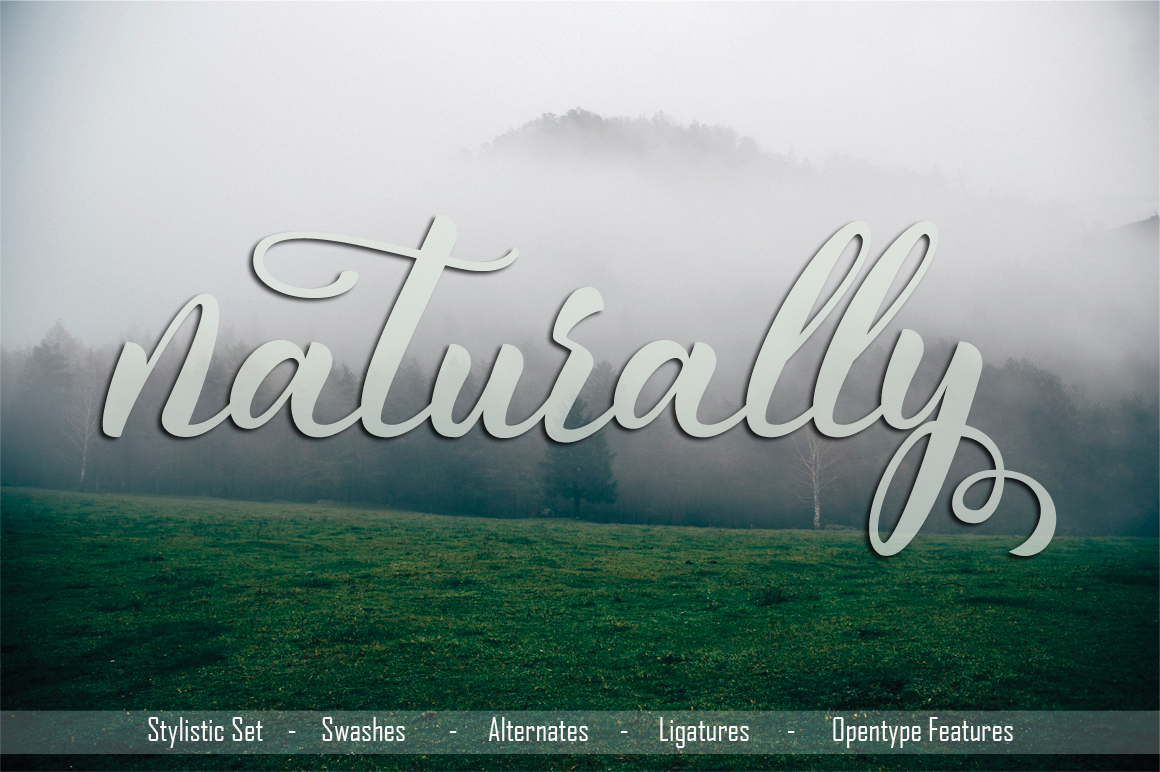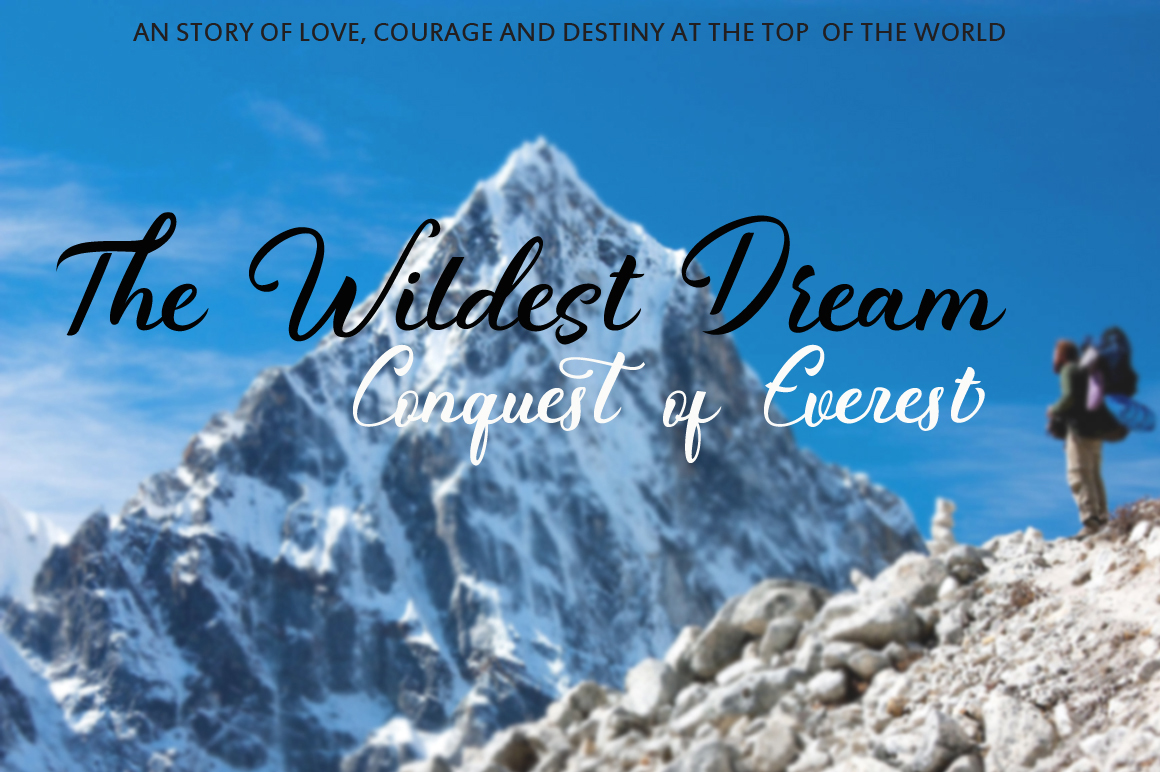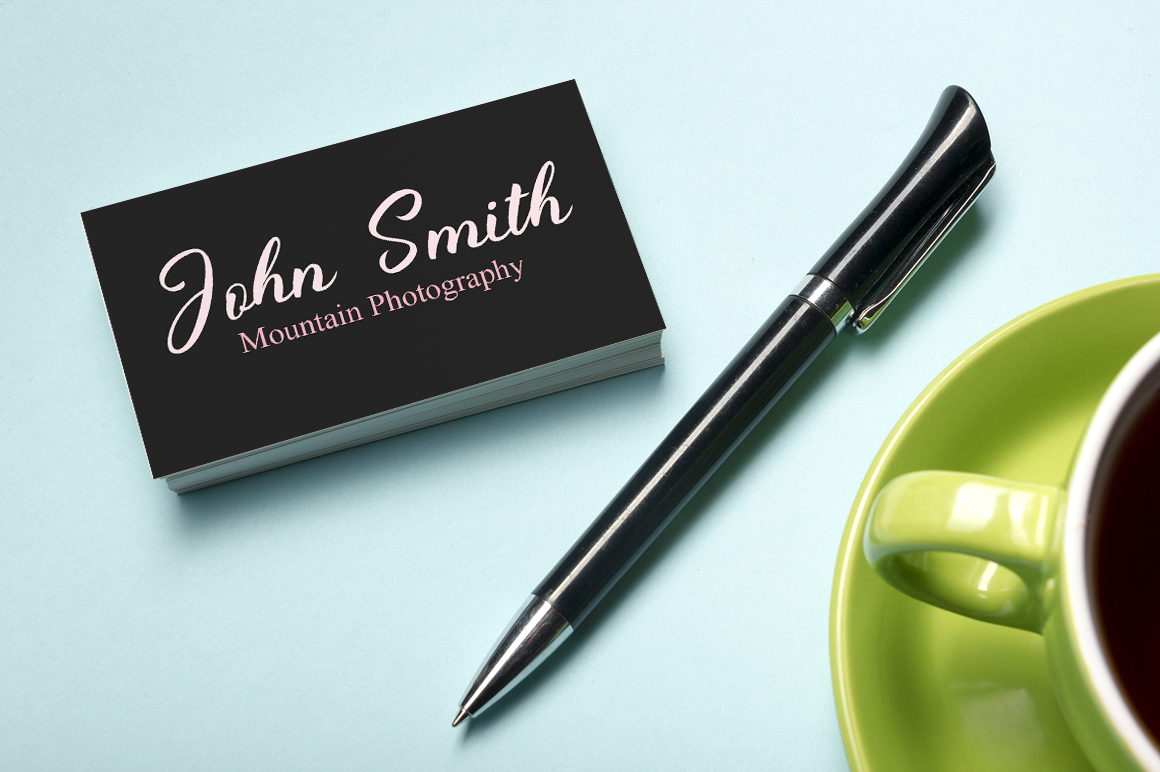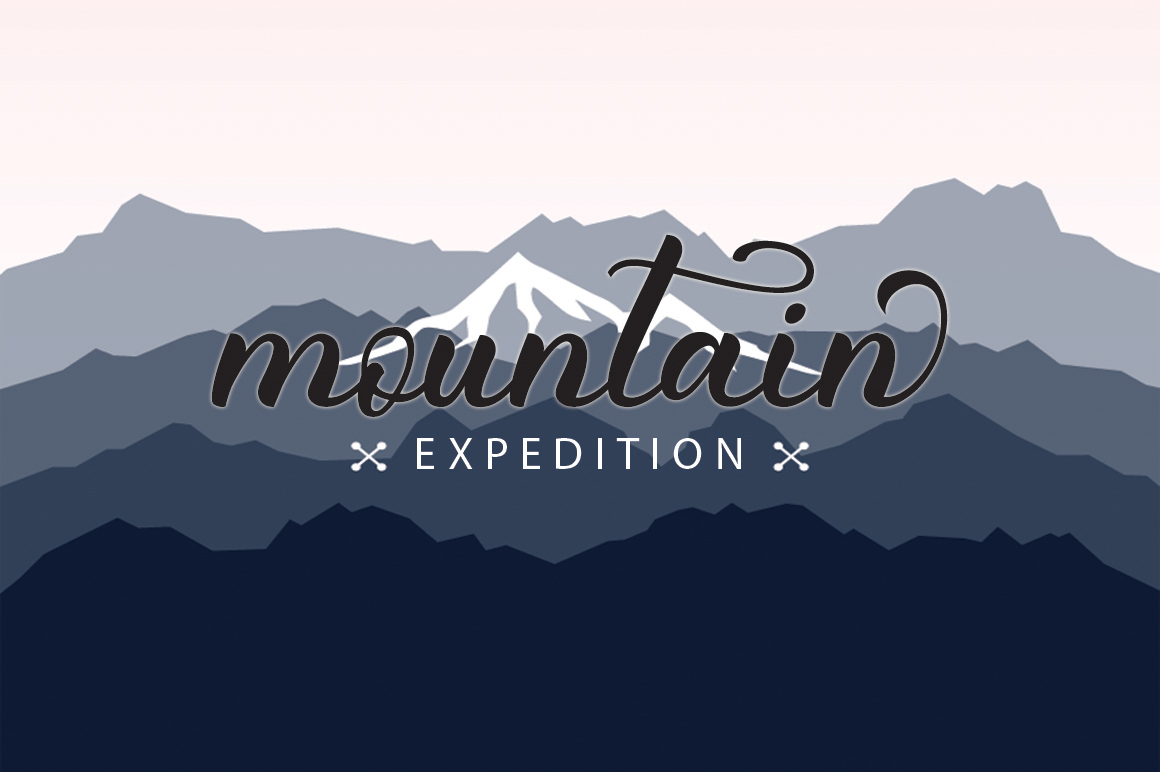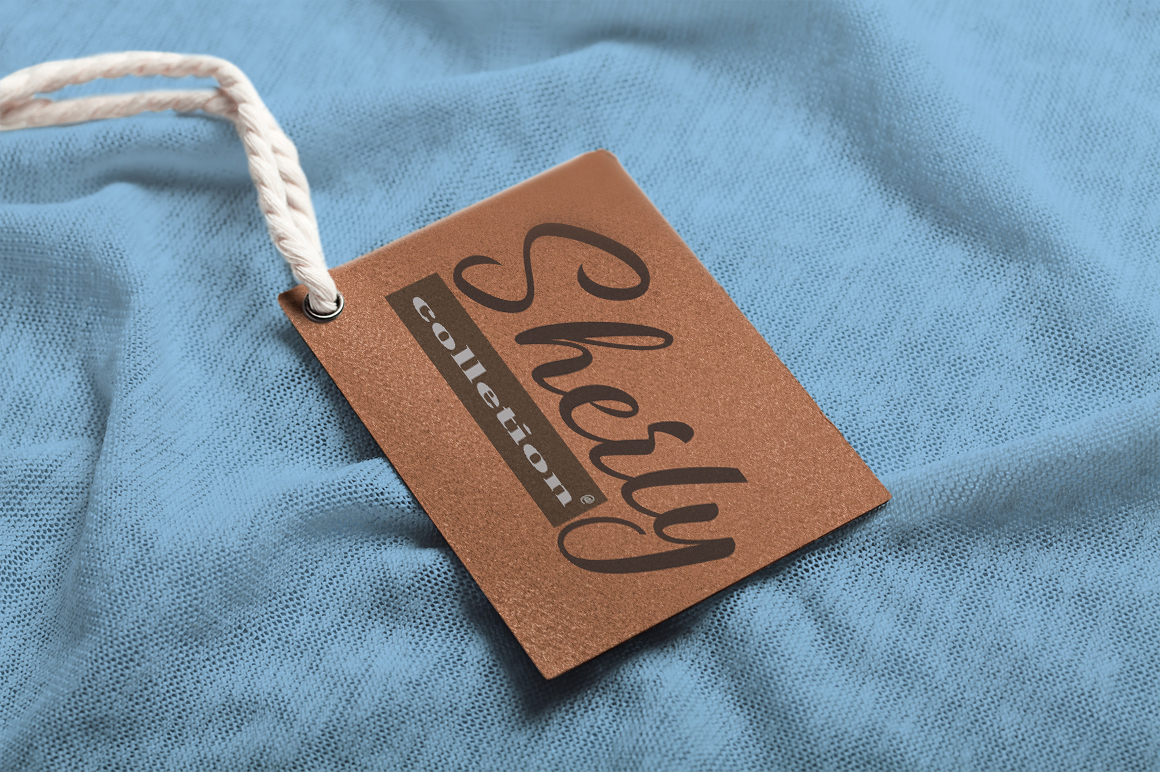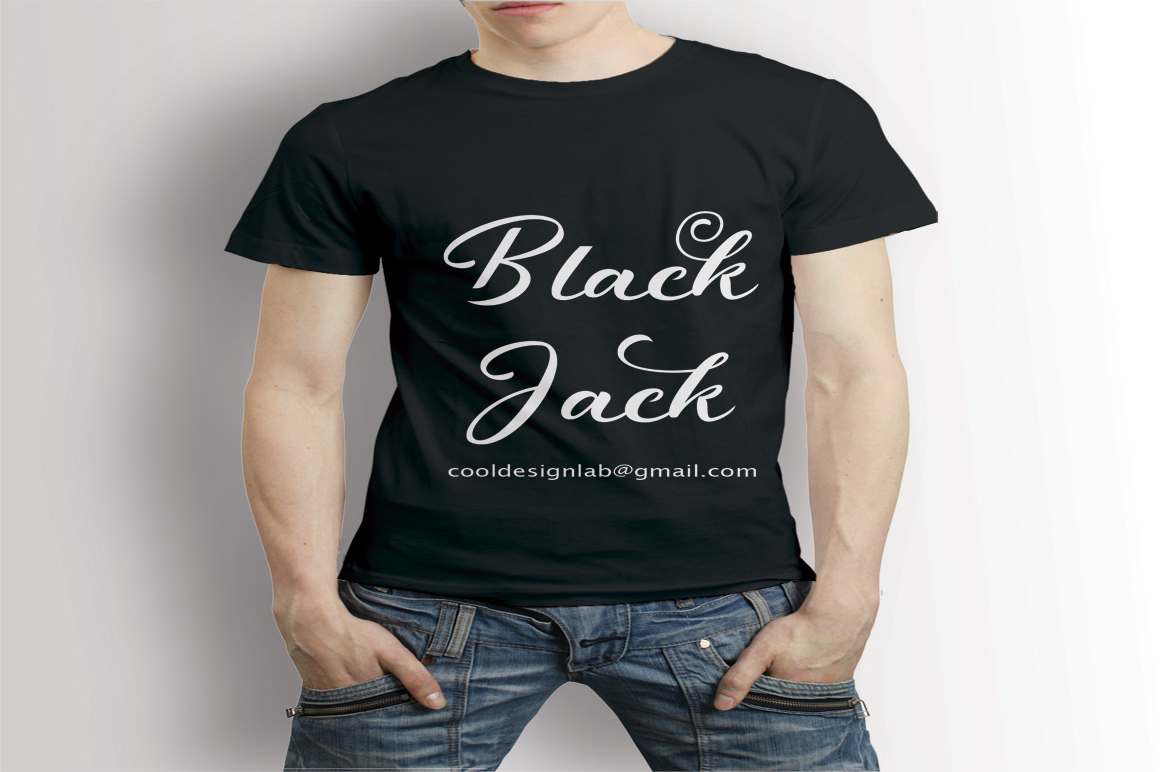
The Art of Elegant Typography: Unveiling the Fanesia Font
As a designer, there’s nothing quite like the thrill of discovering a new font that perfectly captures the essence of your creative vision. For me, that moment came when I stumbled upon the Fanesia Font, a stunning handwritten script with classical roots that immediately stole my heart.
The Fanesia Font is a beautiful formal script designed to evoke a sense of sophistication and elegance, making it a versatile choice for a wide range of design projects, from wedding invitations to luxury branding. With over 400 handmade glyphs and 237 alternate characters, this font is a true masterpiece of typographic craftsmanship.
For designers, the Fanesia Font is a valuable asset, offering a unique combination of classic charm and modern flair that can elevate any design to new heights. Whether you’re looking to create a timeless and sophisticated look or something more playful and whimsical, the Fanesia Font is sure to inspire your creativity and help you achieve your design goals.
Fanesia Font Key Features
- Font Family: Fanesia Font comes in 6 font families (Regular, Italic, Bold, Bold Italic, Light, Light Italic) to cater to various design requirements.
- Character Set: Fanesia Font supports a wide range of characters, including Latin, Cyrillic, and Greek alphabets, making it suitable for multilingual designs.
- Unique Characteristics: The font features a unique, hand-drawn style with subtle flair and elegance, making it ideal for creative and artistic designs.
Fanesia Font Review
I recently had the chance to work with Fanesia Font, and I have to say, it’s a mixed bag. Let’s start with what works well:
- ✨ Unique and creative design: Fanesia Font has a distinctive look that sets it apart from more traditional fonts.
- ✨ Wide language support: The font includes a wide range of languages, making it a great choice for projects that require multilingual support.
- ✨ High-resolution graphics: The font includes high-resolution graphics, which makes it perfect for printing and digital use.
- ⚠️ Limited flexibility: The font is quite rigid in terms of style and design, which can make it difficult to adapt to different projects.
- ⚠️ Some characters may not be ideal: While the font includes a wide range of languages, some characters may not be ideal for certain projects, such as logotypes or headings.
- ⚠️ Not ideal for small text: The font is quite large and bold, which can make it difficult to read in small text sizes.
Overall, I think Fanesia Font is a great choice for projects that require a unique and creative design. However, it may not be the best choice for projects that require flexibility or small text sizes.
Use Fanesia font for creative projects, such as invitations, brochures, and social media graphics. This font is ideal for adding a touch of elegance and sophistication to your designs.
Fanesia font is commonly used for:
– Luxury brand logos and packaging
– High-end fashion and beauty branding